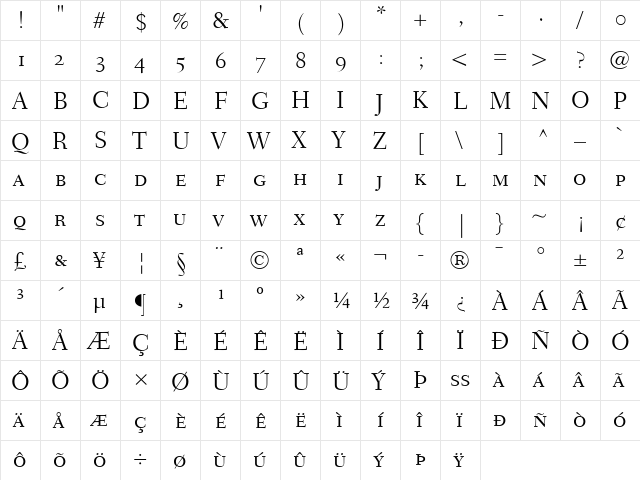
Fairfield LH LightSC Regular
Design Context for Fairfield LH LightSC Typeface
Fairfield LH LightSC takes a measured approach to typography — its balanced proportions and neutral character make it a reliable workhorse for both digital and print work. The delicate stroke weight brings airiness and refinement to layouts.